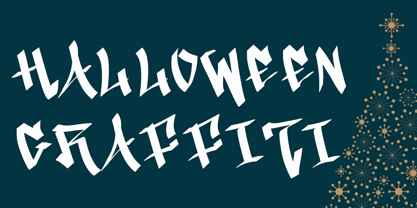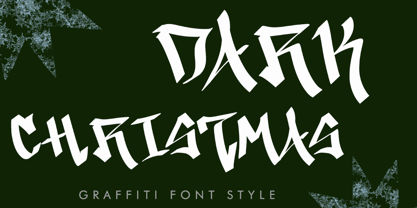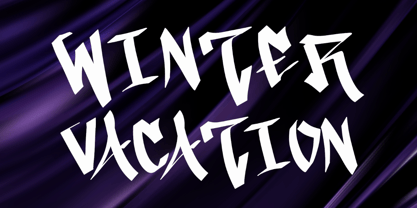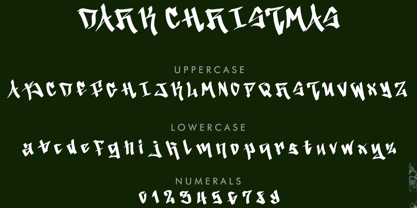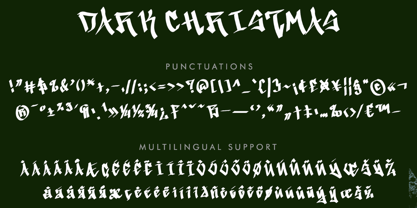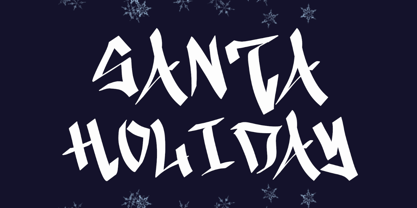
Dark Christmas
by Yoga Letter
The Dark Christmas Font Family was designed by Isroni Yoga Prasetya and published by Yoga Letter. Dark Christmas contains 1 styles.
"Dark Christmas" is a unique Christmas graffiti font. It features uppercase and lowercase letters, numbers, punctuation, and multilingual support. It's perfect for Christmas, Halloween, winter, fall, autumn, spring, and summer, banners, posters, branding, stickers, logos, tattoos, business branding, Easter, Teacher's Day, murals, wall paintings, and more.
Designers: Isroni Yoga Prasetya
Publisher: Yoga Letter
Foundry: Yoga Letter
Design Owner: Yoga Letter
Dark Christmas